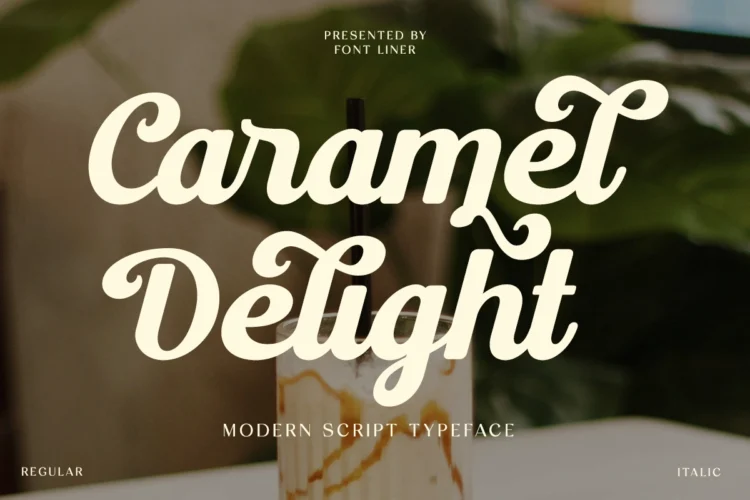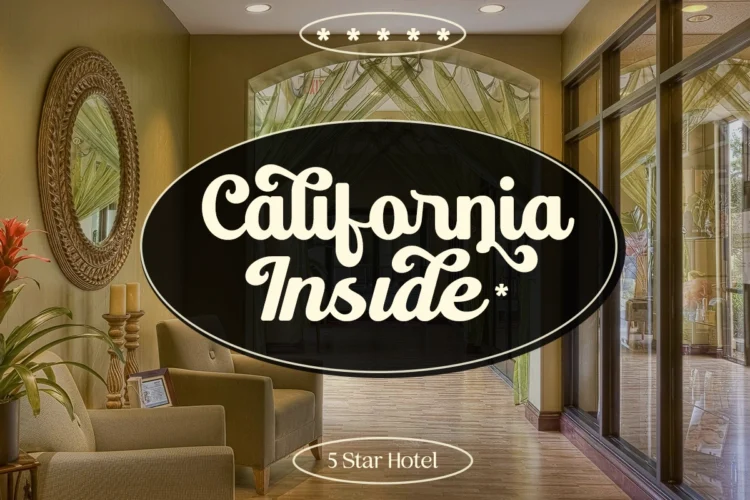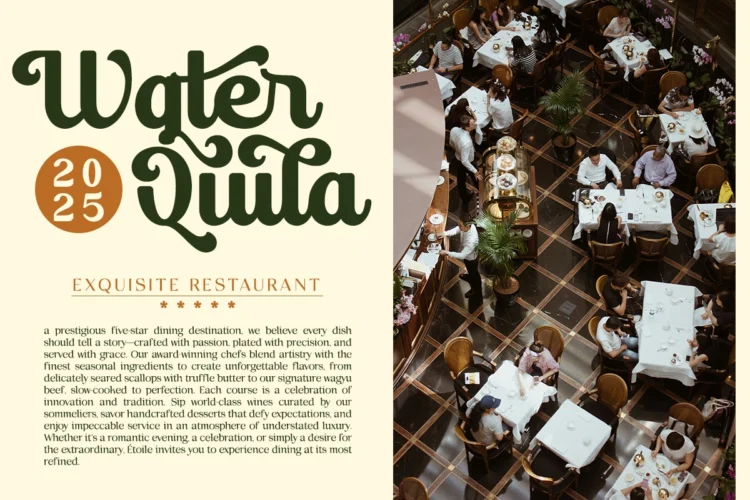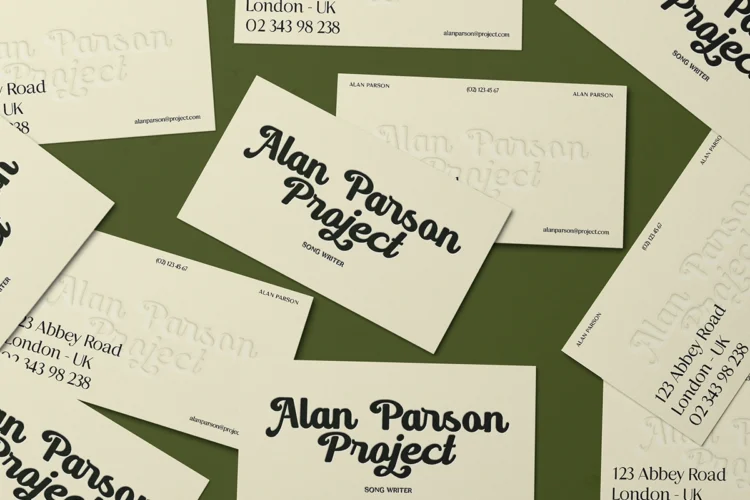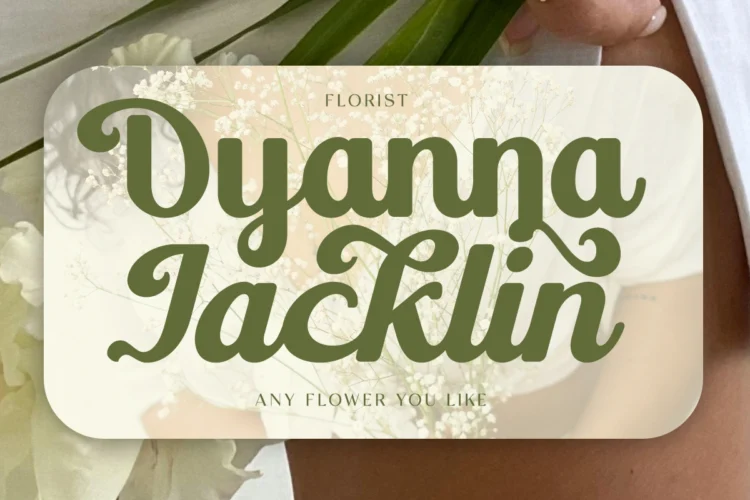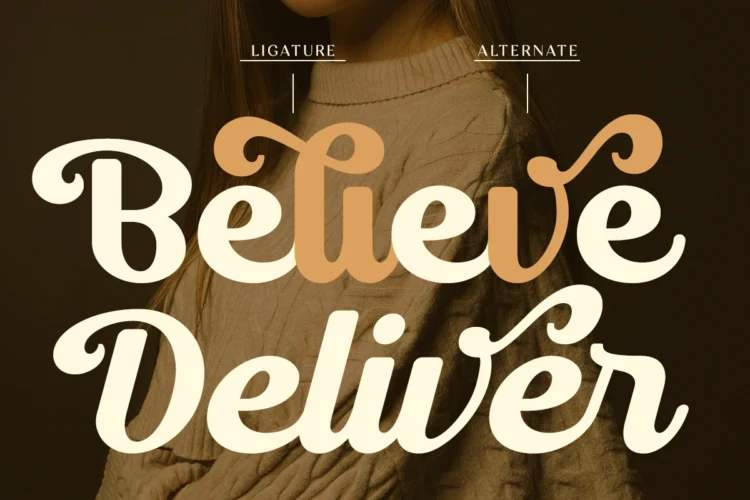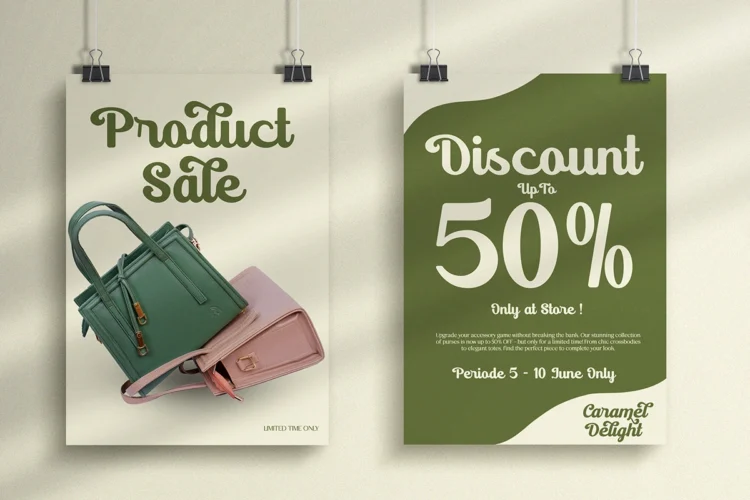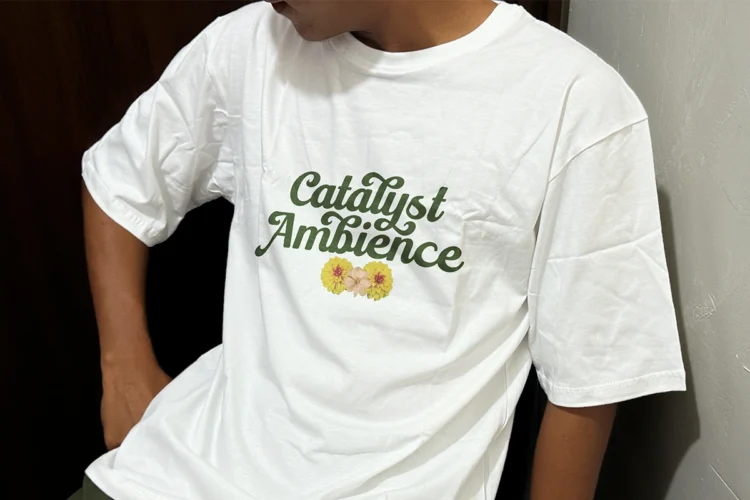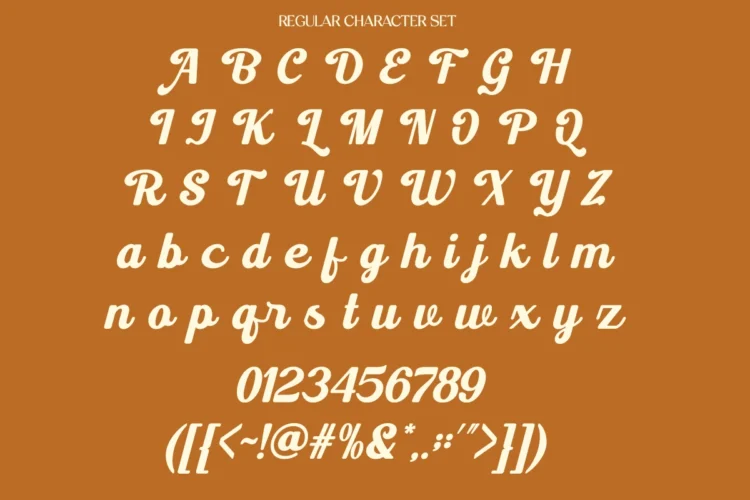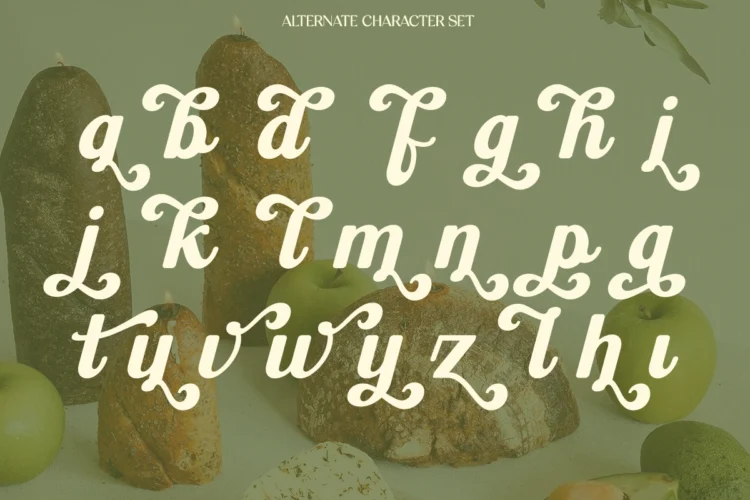
Caramel Delight
Caramel Delight is Modern Script Font is a timeless blend of sophistication and charm, designed to bring an exquisite touch to every project. With its fluid strokes, graceful curves, and luxurious calligraphic alternates, Ideal for wedding invitations, branding identities, logo designs, and high-end packaging and perfect choice for designers who seek both beauty and versatility.